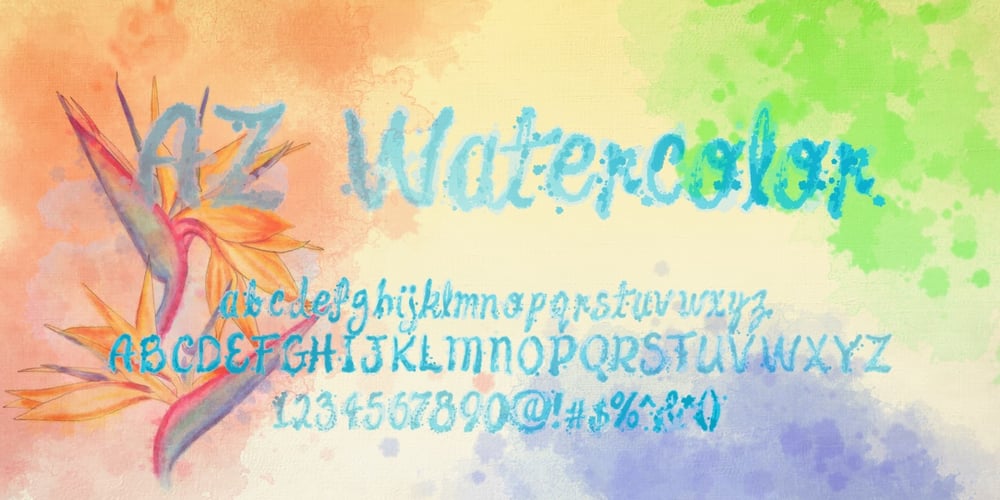
AZ Watercolor
AZ Watercolor font
AZ Watercolor Font Family was designed by published by Artist of Design. AZ Watercolor contains 3 styles and family package options. AZ Watercolor was inspired from a need to develop a more realistic watercolor font with a hand painted effect to it. This font was designed for use as a fun bold headline or sub headline for display. Included in this package is a series of three fonts: Ultralight (use darker color for a ‘splatter’ effect), Normal (Use midrange color for normal ‘blend’ effect) and Heavy (Use a light color for a ‘wash’ Effect). Additionally, you can use this font with it’s sister font “AZ Dramamine” for a more dramatic effect.